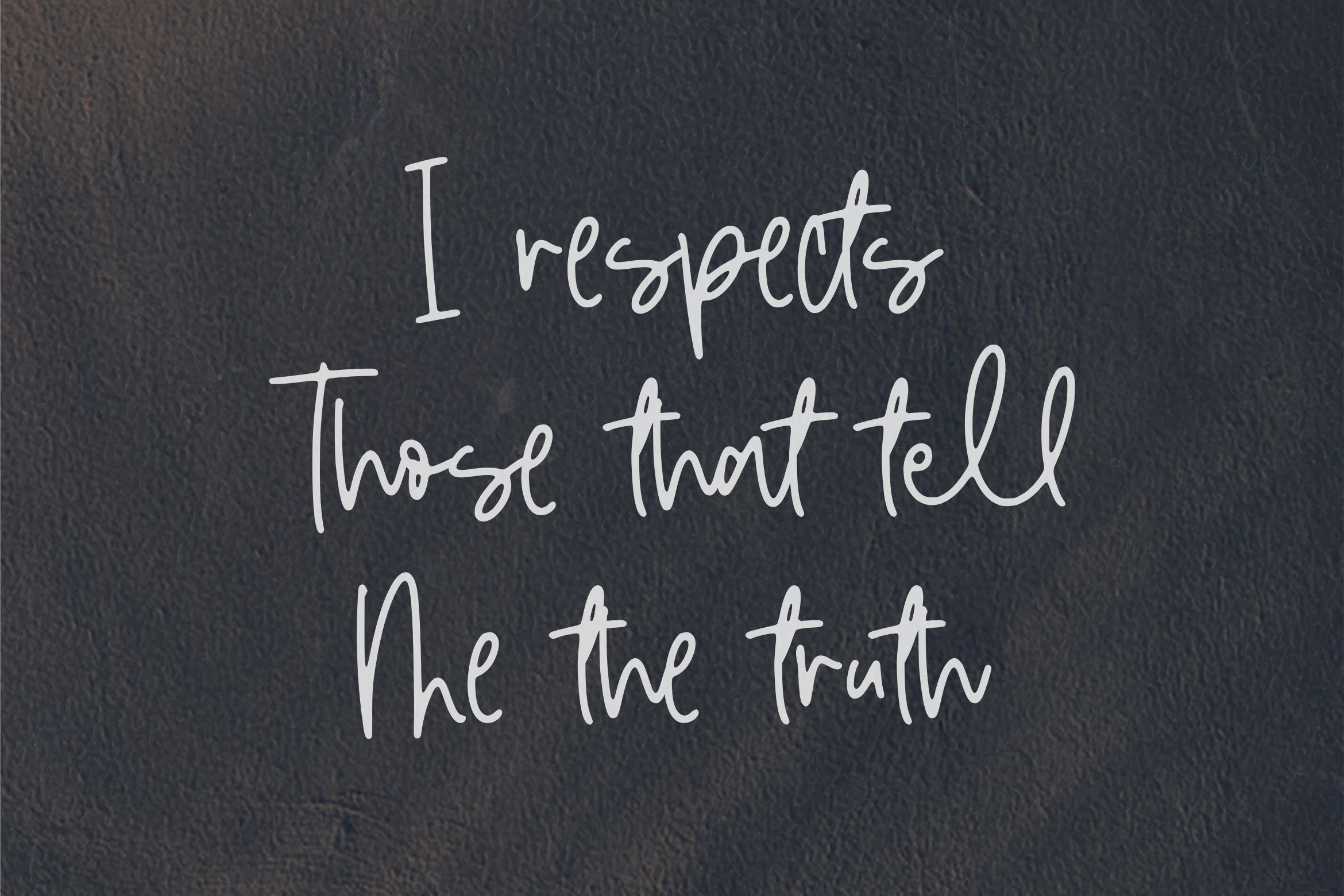
About Blackfeast Stylist Handwritten Font
Introducing by Letterative Studio : Blackfeast Font Blackfeast is a Stylist Handwritten Font Blackfeast is an incredibly distinct, delicate and timeless handwritten font. It looks stunning on wedding invitations, thank you cards, quotes, greeting cards, logos, business cards and every other design which needs a handwritten touch. This font includes : TTF and OTF Blackfeast also multilingual support Enjoy the font! Feel free to comment or feedback Send me PM or email Thank you!